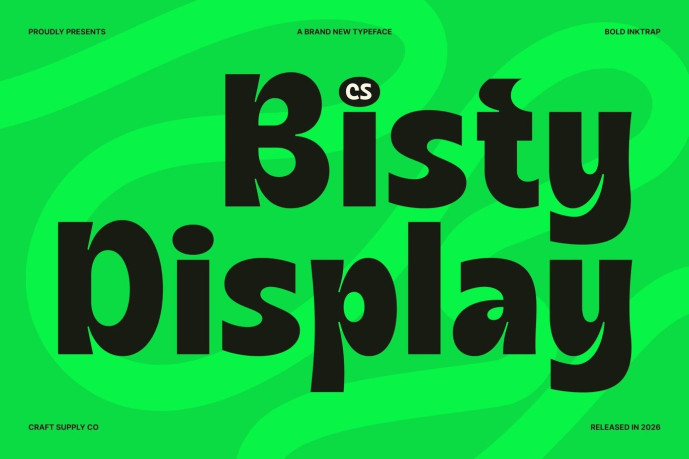
Bisty – Inktrap Font
Designer: Craft Supply Co.
CS Bisty – Bold Sans Serif Font: Where Striking Precision Meets Playful Energy Strong Forms with Modern Visual Impact This is a bold sans serif display font designed to capture attention through its powerful structure and contemporary aesthetic. Featuring modern, clean letterforms and striking lines, it delivers a confident visual presence that feels fresh, dynamic, and highly memorable. Its bold construction ensures excellent visibility, making it ideal for display applications that demand impact and clarity.
Inktrap Details with Unique Character This font introduces subtle cuts and refined openings that add personality and visual interest to every character. These typographic features not only improve readability but also create a unique and recognizable identity. The result is a font that feels both technically refined and creatively expressive.
Playful Energy Meets Contemporary Design Balancing bold geometry with playful design elements, this font offers a vibrant typographic style that feels approachable and energetic. Its combination of strong forms and lively character creates a versatile design tool suitable for projects that seek both professionalism and creativity.
Perfect for Logos, Posters, and Creative Displays Ideal for logos, posters, headlines, titles, packaging, advertising campaigns, social media graphics, merchandise, event promotions, and creative visual identities. Its distinctive inktrap forms and playful personality make it ideal for logos and display typography that seek to communicate confidence, originality, and modern appeal.